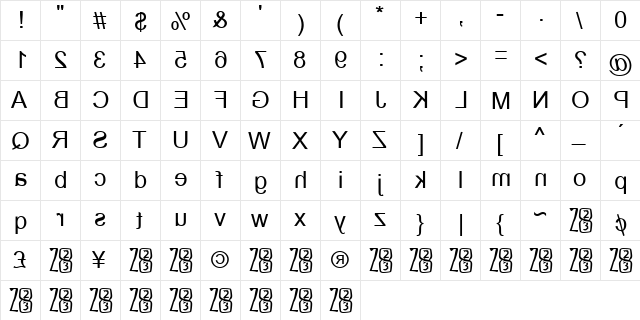
Zone23_HelveticaFlip Normal
Zone23_HelveticaFlip takes a measured approach to typography — its balanced proportions and neutral character make it a reliable workhorse for both digital and print work.